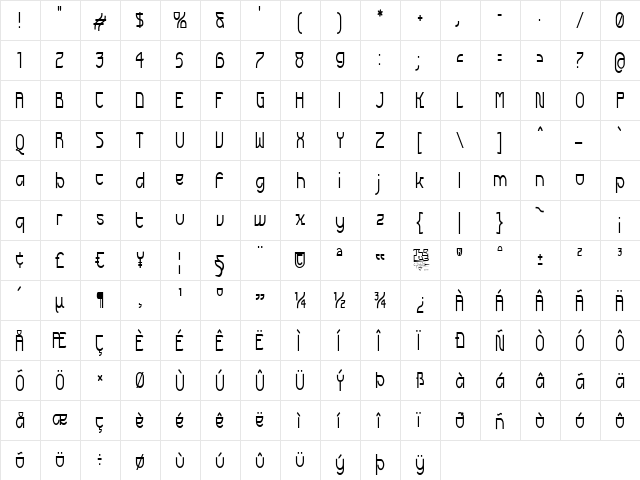
Futurex Narrow Regular
Design Context for Futurex Narrow Typeface
Futurex Narrow channels digital-age aesthetics through its sharp, structured letterforms — ideal for brands that want to signal innovation. Its narrow stance lets it pack a punch even in space-constrained designs.
Pro Tip: Try Futurex Narrow with generous letter-spacing in UI labels and navigation — the geometric forms benefit from room to breathe.